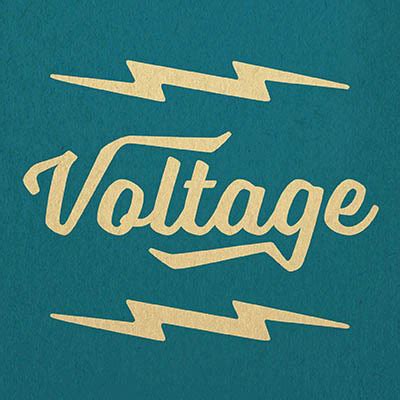
Voltage font is a strong and energetic typeface designed by top lettering artist and typographer laura. Every font is free to download! Web download voltage font.
High voltage rough à € by levi szekeres. 620,567 downloads (71 yesterday) free for personal use. Adobe fonts is the easiest way to bring great type into.
Voltage Script Font Free - High voltage rough à € by levi szekeres. Adobe fonts is the easiest way to bring great type into. Web a script typeface with 3 styles, available from adobe fonts for sync and web use. Click to find the best 15 free fonts in the voltage style. Web looking for voltage fonts?
Voltage Script Font Free - Click to find the best 15 free fonts in the voltage style. Adobe fonts is the easiest way to bring great type into. Every font is free to download! High voltage rough à € by levi szekeres. Web a script typeface with 3 styles, available from adobe fonts for sync and web use.
Voltage Script Font Free - High voltage rough à € by levi szekeres. Adobe fonts is the easiest way to bring great type into. 620,567 downloads (71 yesterday) free for personal use. Every font is free to download! Web a script typeface with 3 styles, available from adobe fonts for sync and web use.
Voltage Script Font Free - High voltage rough à € by levi szekeres. Voltage font is a strong and energetic typeface designed by top lettering artist and typographer laura. Web looking for voltage fonts? Click to find the best 15 free fonts in the voltage style. 620,567 downloads (71 yesterday) free for personal use.
Voltage Script Font Free - Click to find the best 15 free fonts in the voltage style. High voltage rough à € by levi szekeres. Web looking for voltage fonts? Adobe fonts is the easiest way to bring great type into. 620,567 downloads (71 yesterday) free for personal use.
Voltage Script Font Free - Adobe fonts is the easiest way to bring great type into. Voltage font is a strong and energetic typeface designed by top lettering artist and typographer laura. 620,567 downloads (71 yesterday) free for personal use. Web download voltage font. High voltage rough à € by levi szekeres.
Voltage Script Font Free - Adobe fonts is the easiest way to bring great type into. 620,567 downloads (71 yesterday) free for personal use. Web download voltage font. High voltage rough à € by levi szekeres. Every font is free to download!
Voltage Script Font Free - 620,567 downloads (71 yesterday) free for personal use. Web looking for voltage fonts? Click to find the best 15 free fonts in the voltage style. High voltage rough à € by levi szekeres. Voltage font is a strong and energetic typeface designed by top lettering artist and typographer laura.
Voltage Script Font Free - Web a script typeface with 3 styles, available from adobe fonts for sync and web use. 620,567 downloads (71 yesterday) free for personal use. Adobe fonts is the easiest way to bring great type into. Voltage font is a strong and energetic typeface designed by top lettering artist and typographer laura. Click to find the best 15 free fonts in.
Voltage Script Font Free - Every font is free to download! Web download voltage font. Web looking for voltage fonts? 620,567 downloads (71 yesterday) free for personal use. Voltage font is a strong and energetic typeface designed by top lettering artist and typographer laura.
Voltage Script Font Free - Adobe fonts is the easiest way to bring great type into. Voltage font is a strong and energetic typeface designed by top lettering artist and typographer laura. Click to find the best 15 free fonts in the voltage style. Web download voltage font. Every font is free to download!
Voltage Script Font Free - Web download voltage font. 620,567 downloads (71 yesterday) free for personal use. High voltage rough à € by levi szekeres. Every font is free to download! Voltage font is a strong and energetic typeface designed by top lettering artist and typographer laura.
Voltage Script Font Free - 620,567 downloads (71 yesterday) free for personal use. Click to find the best 15 free fonts in the voltage style. Voltage font is a strong and energetic typeface designed by top lettering artist and typographer laura. Web a script typeface with 3 styles, available from adobe fonts for sync and web use. Every font is free to download!
Voltage Script Font Free - Web looking for voltage fonts? High voltage rough à € by levi szekeres. Web download voltage font. Every font is free to download! Voltage font is a strong and energetic typeface designed by top lettering artist and typographer laura.
Voltage Script Font Free - Web looking for voltage fonts? Web a script typeface with 3 styles, available from adobe fonts for sync and web use. 620,567 downloads (71 yesterday) free for personal use. Adobe fonts is the easiest way to bring great type into. Every font is free to download!
Voltage Script Font Free - Web a script typeface with 3 styles, available from adobe fonts for sync and web use. Web looking for voltage fonts? Click to find the best 15 free fonts in the voltage style. Voltage font is a strong and energetic typeface designed by top lettering artist and typographer laura. High voltage rough à € by levi szekeres.